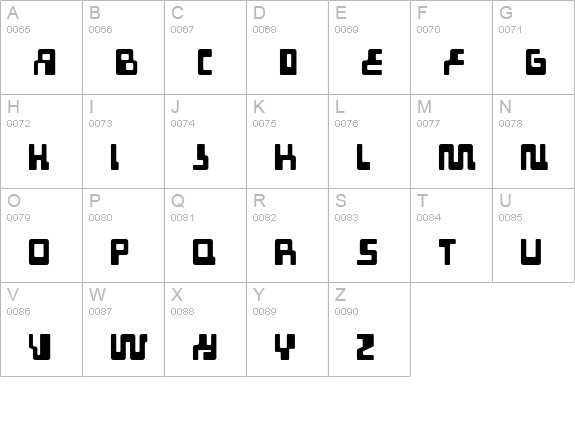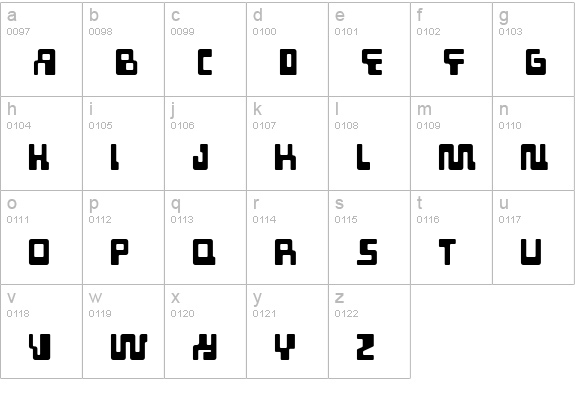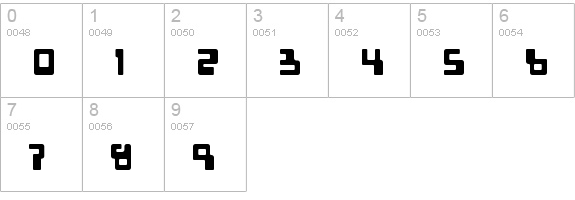
Tabletron Font Details
Tabletron font is a modern and elegant typeface that brings a touch of sophistication to any design project. With its clean lines and sleek curves, this font is perfect for both print and digital applications. Whether you're creating a logo, designing a website, or crafting a brochure, Tabletron font will elevate your design to the next level. One of the best things about Tabletron font is that it is free. That's right, you can download this amazing font for absolutely no cost at FontsMarket.com. We believe that great design should be accessible to everyone, and that's why we're offering Tabletron font as a free download. But don't let its price tag fool you – Tabletron font is of the highest quality. Each character has been meticulously crafted to ensure that it is visually stunning and perfectly balanced. The result is a font that is not only pleasing to the eye but also highly legible, making it suitable for a wide range of design projects. Tabletron font comes in a variety of weights and styles, allowing you to find the perfect fit for your project. From the bold and impactful Tabletron Regular to the delicate and refined Tabletron Light, there's a style to suit every design need. So why wait? Download Tabletron font today and take your designs to new heights. Whether you're a professional designer or a hobbyist, this font is sure to become a valuable addition to your font library. And remember, it's free – so you have nothing to lose and everything to gain. Visit FontsMarket.com now to get your hands on Tabletron font and start creating beautiful designs that will leave a lasting impression.